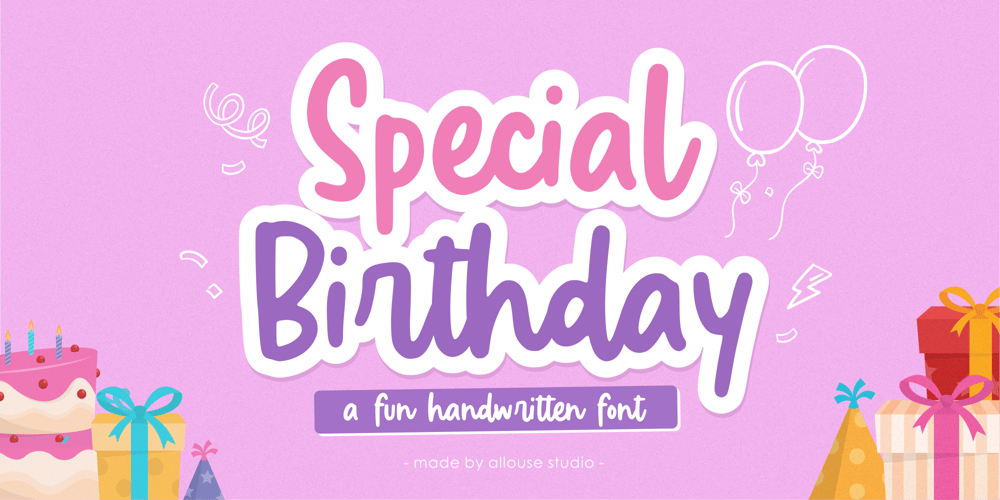
Special Birthday Font Family was designed by Fachrizal Yusuf and published by Allouse Studio. Special Birthday contains 1 styles and family package options. Proudly Presenting, Special Birthday Regular A Fun Handwritten FontSpecial Birthday is perfect for any titles, logo, product packaging, branding project, megazine, social media, wedding, or just used to express words above the background.Special Birthday also come with Multi-Lingual Support.Enjoy the font, feel free to comment or feedback, send me PM or email. Thank You!